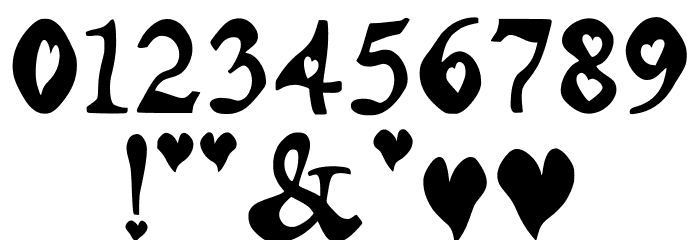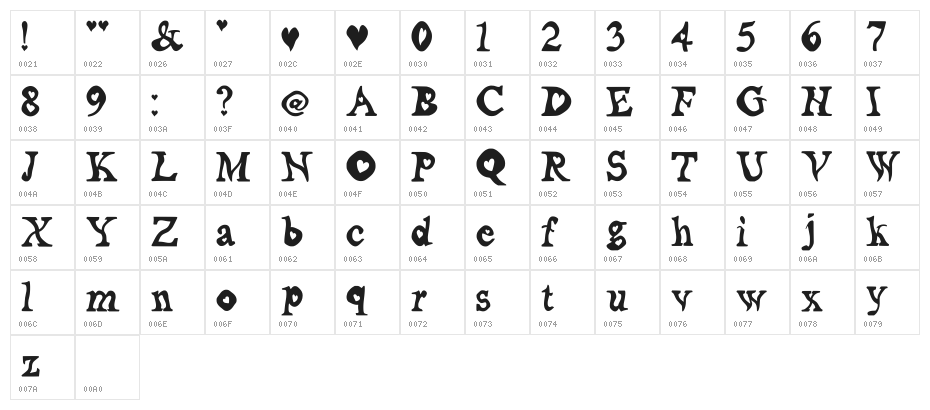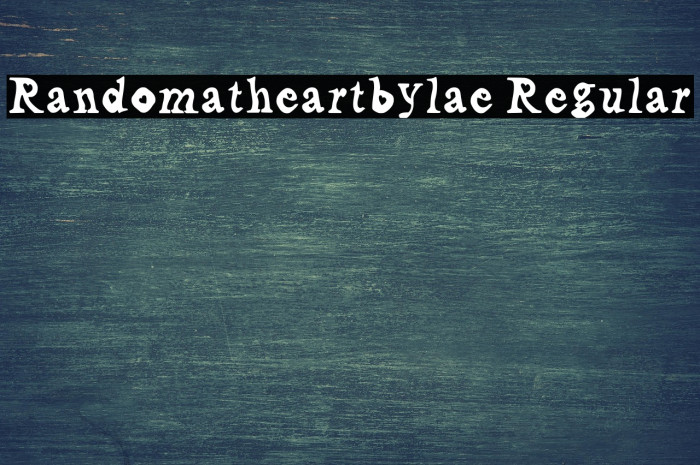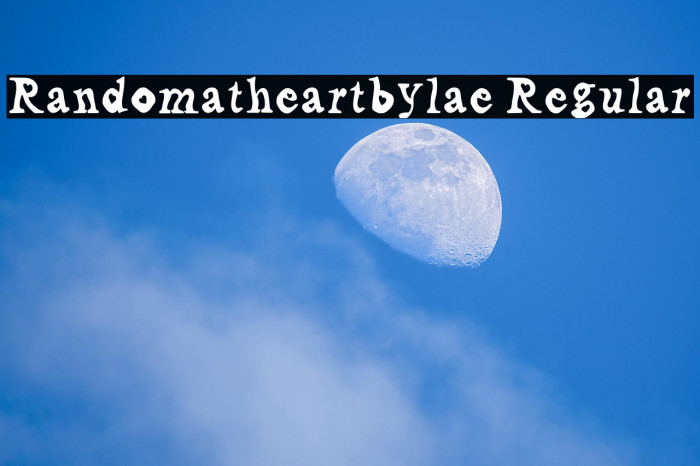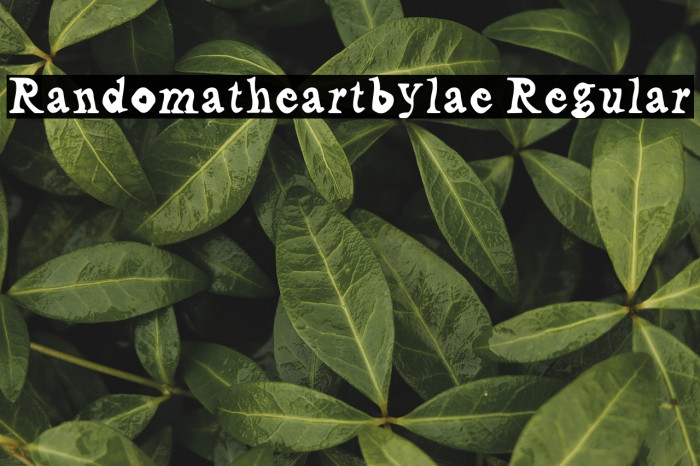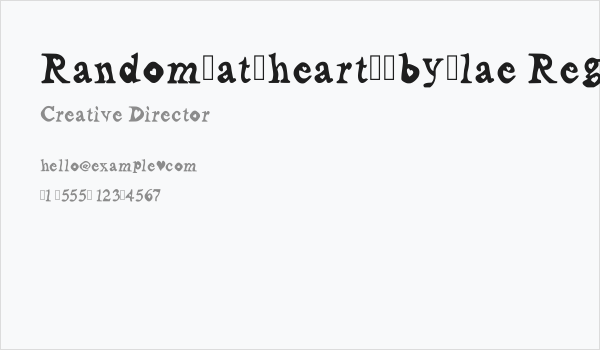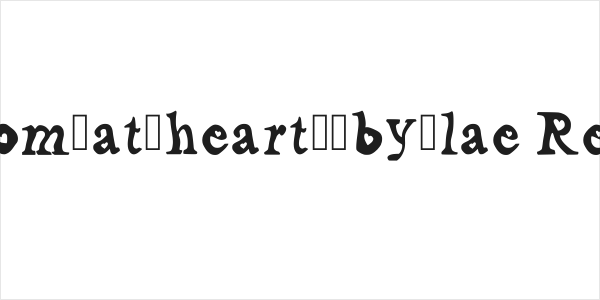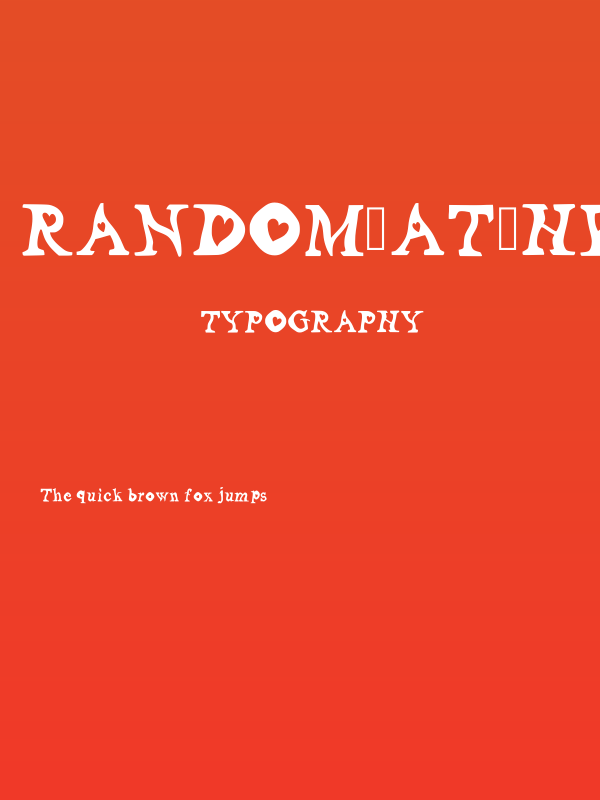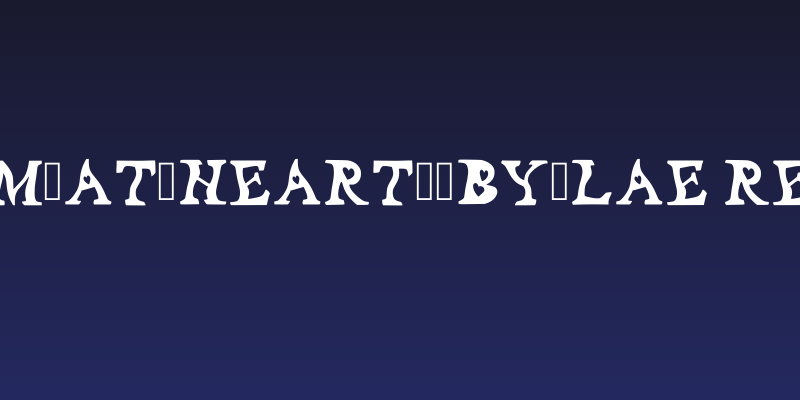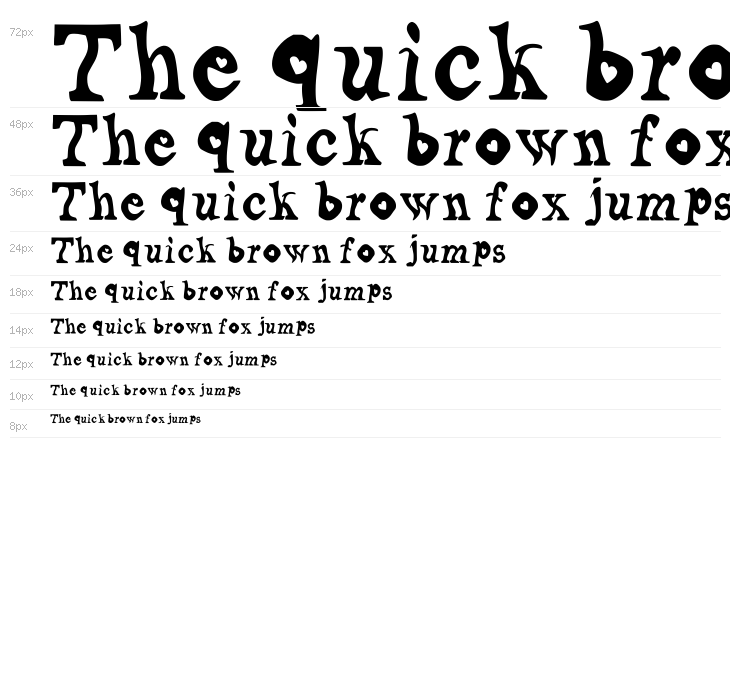
Random_at_heart__by_lae Regular Font
Random_at_heart__by_lae Regular Description
This whimsical and playful font features a unique, hand-drawn style with irregular and organic shapes. The characters have a lively and dynamic appearance, with varying stroke widths that add to its charm. The uppercase letters are bold and slightly uneven, giving a sense of movement and spontaneity. The lowercase letters maintain this playful aesthetic, with some characters featuring distinctive loops and curves. Numbers are equally expressive, with quirky shapes that match the overall style. Special characters, including hearts and stars, enhance the font's decorative appeal, making it ideal for creative and fun projects.
| Use Case | Logos, Posters, Creative Projects |
| Proposed Projects | Ideal for greeting cards, children's books, playful branding, and creative posters. |